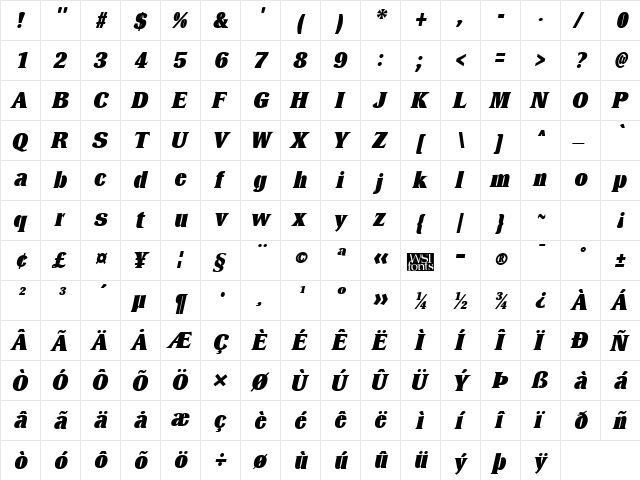
DresselBlack Italic
Design Context for DresselBlack Typeface
DresselBlack takes a measured approach to typography — its balanced proportions and neutral character make it a reliable workhorse for both digital and print work. The dynamic lean of this cut emphasises speed and emphasis in any layout.